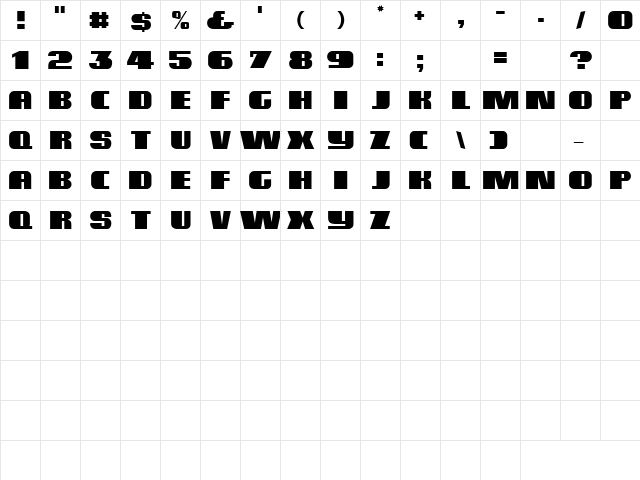
GE Buttress Heavy Caps Regular
Design Context for GE Buttress Heavy Caps Typeface
GE Buttress Heavy Caps offers clean, dependable letterforms without strong stylistic allegiance, making it a practical choice for designers who need flexibility.